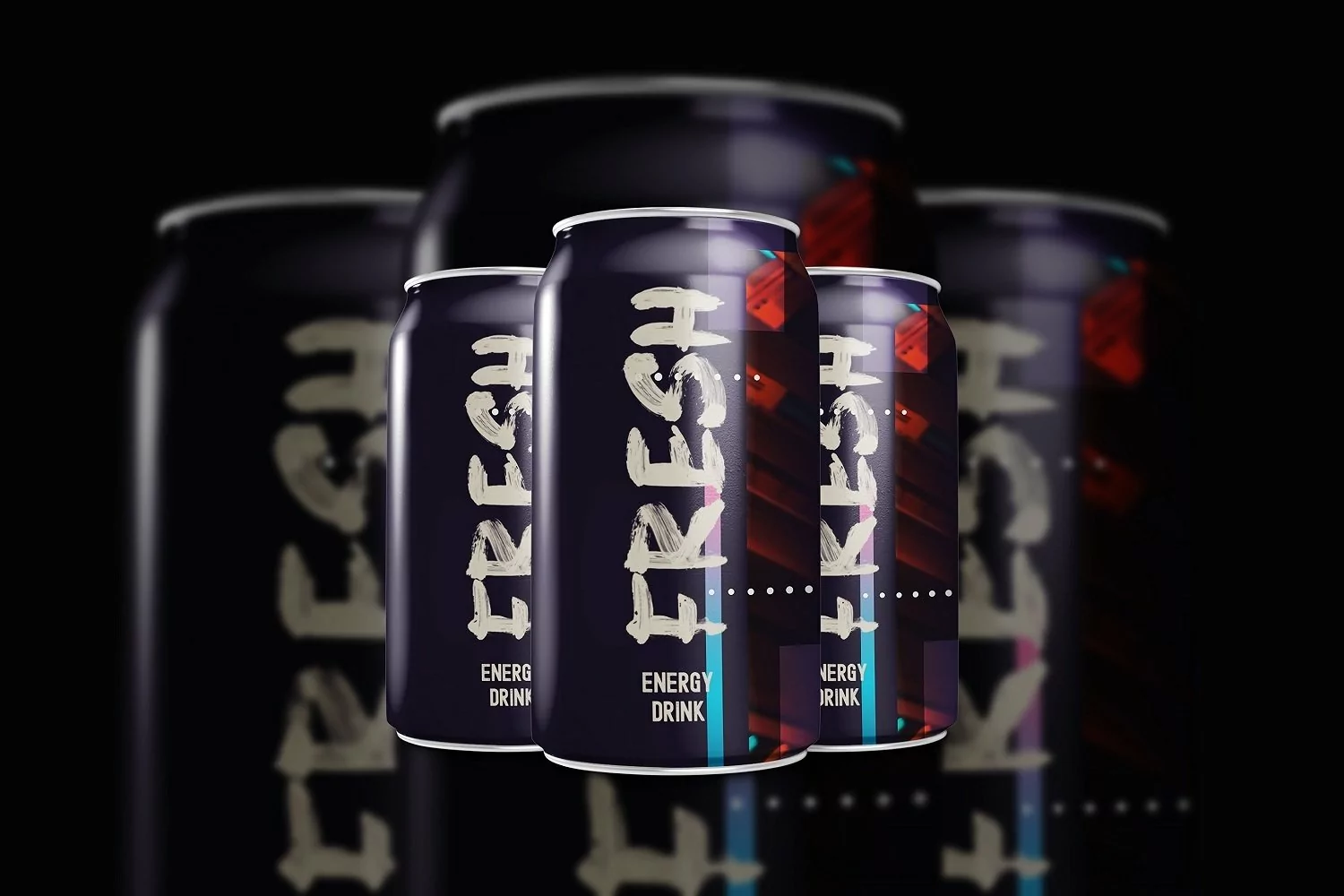
Frost SVG Font
This font is made with great care. So as to produce a real texture. There is something unique about this font, I made this font on paper using paint. After finishing, I left it outside in the rain. I wanted the font texture to have a little rain in it. And I succeeded. If you zoom deeper into the character of the font, you will find the dots are shaped like rain. We hope you have fun with this font. This font will be perfect for posters, packaging, advertisements, headlines, branding, signboards, and whatever else you want from an urban look and feel.